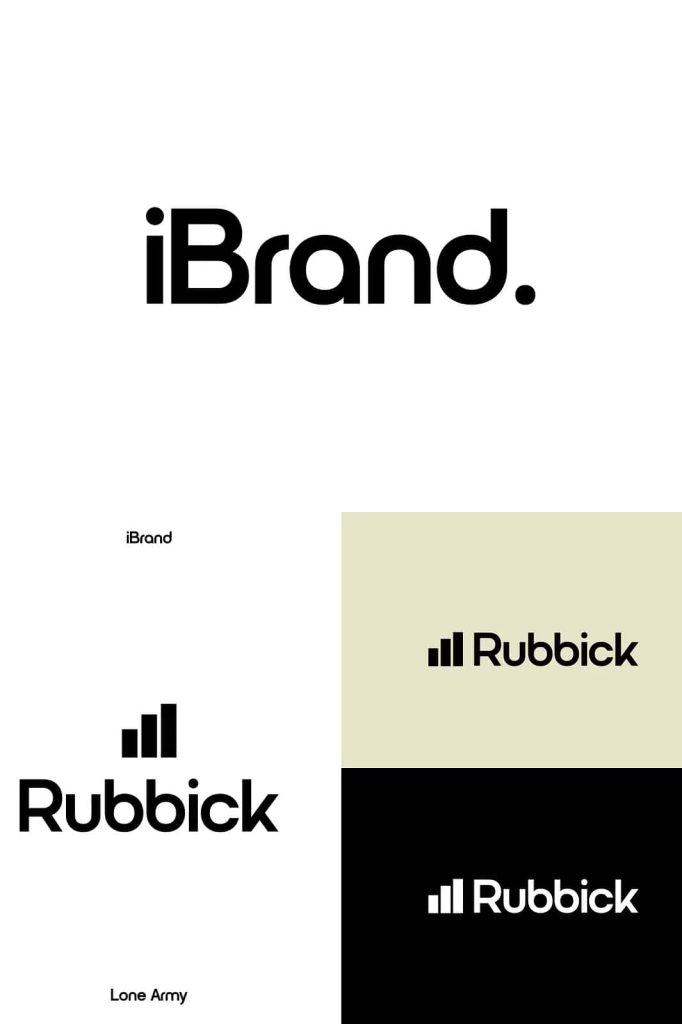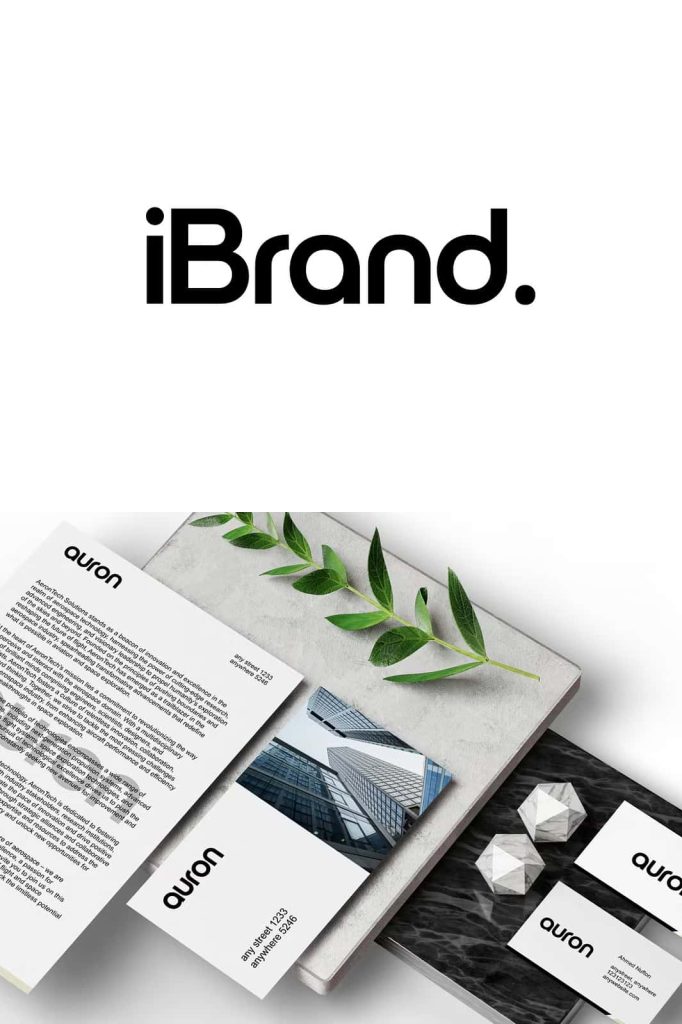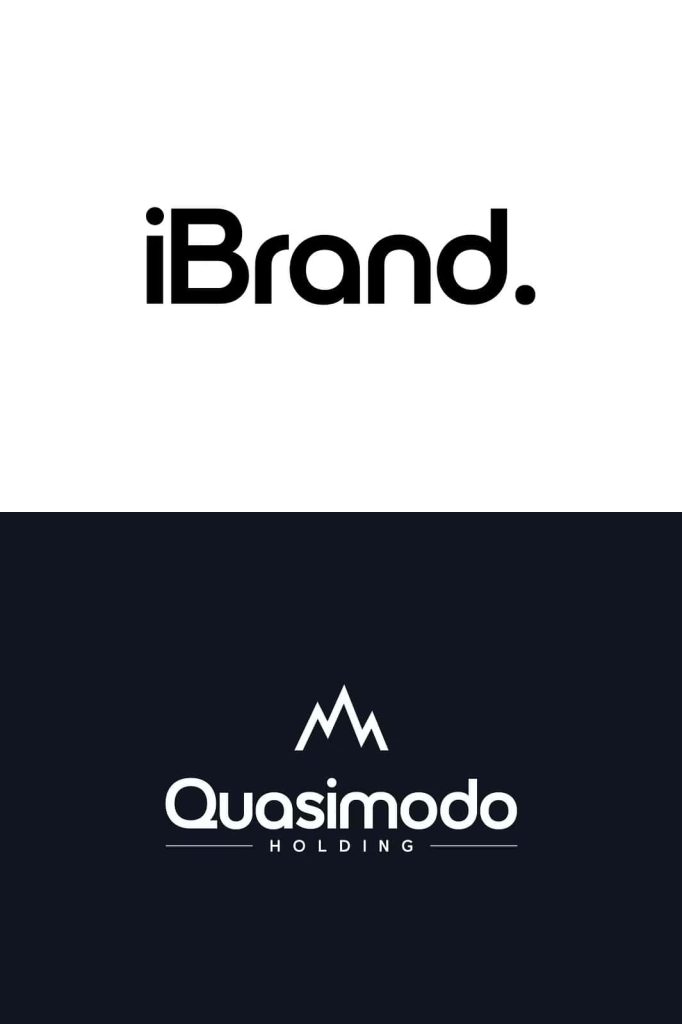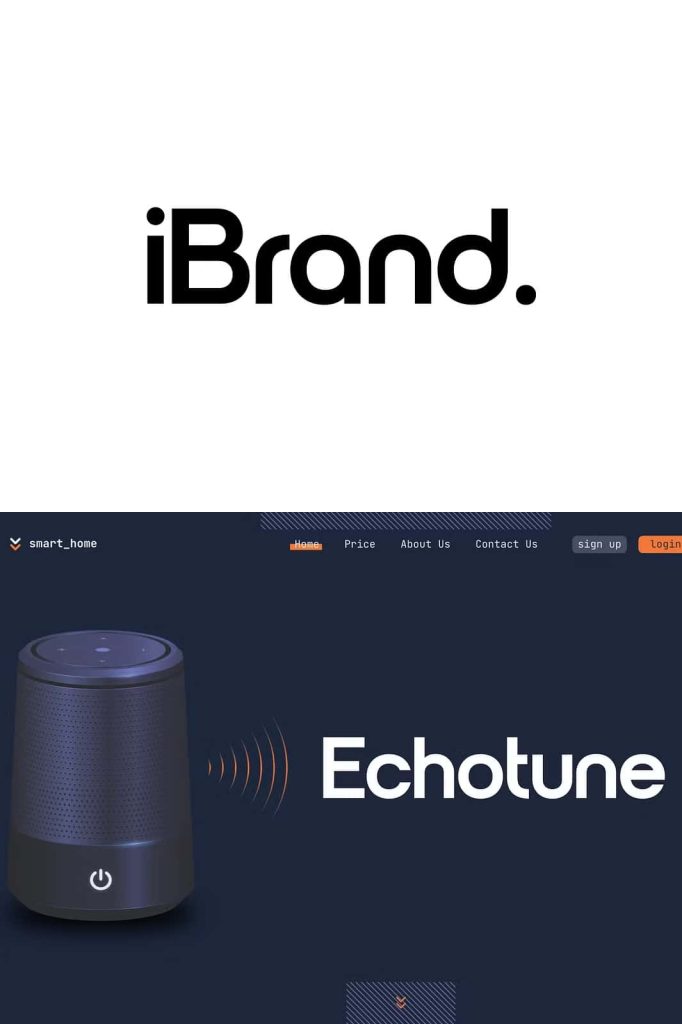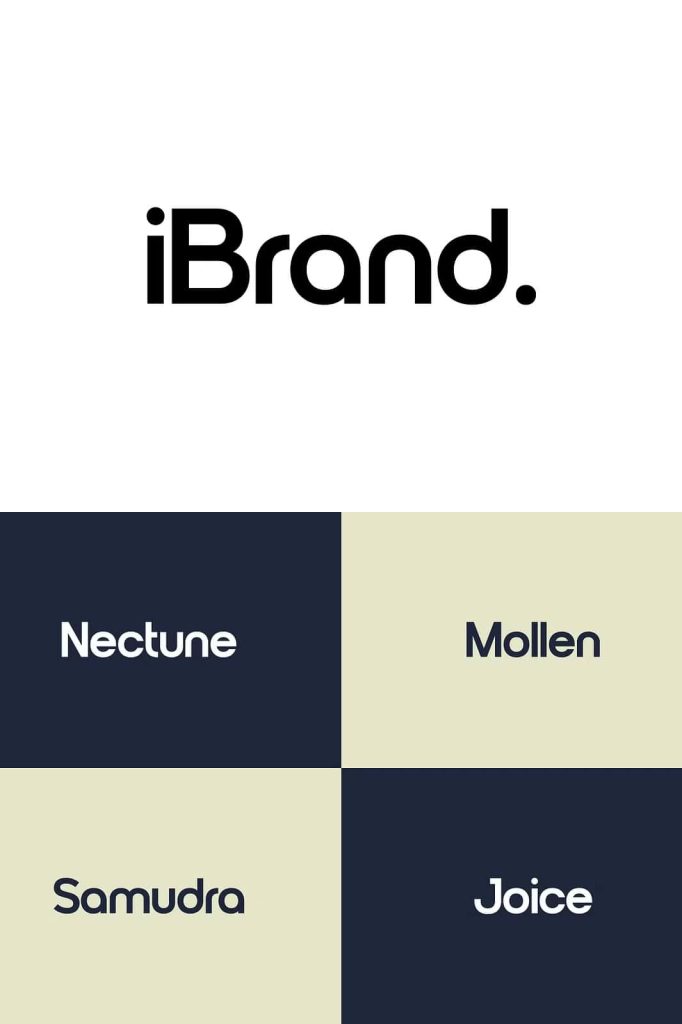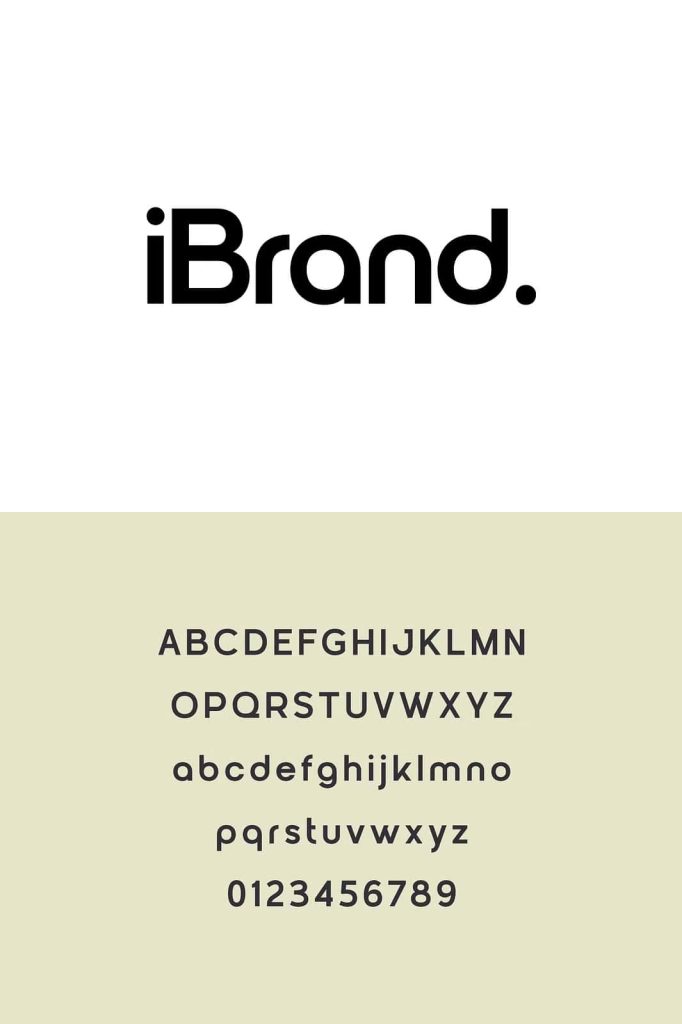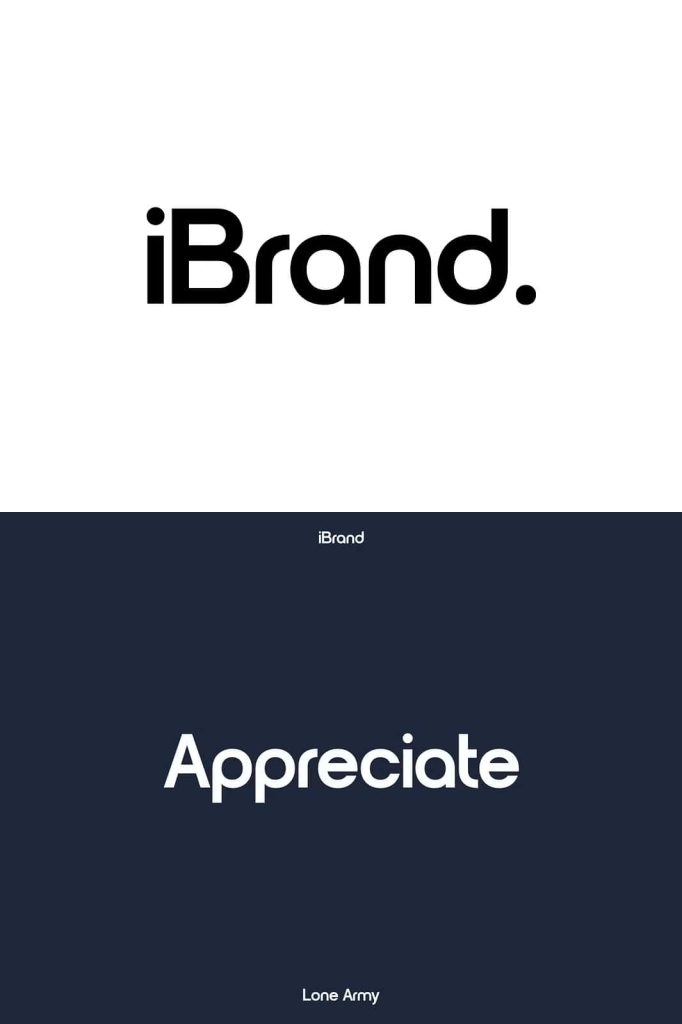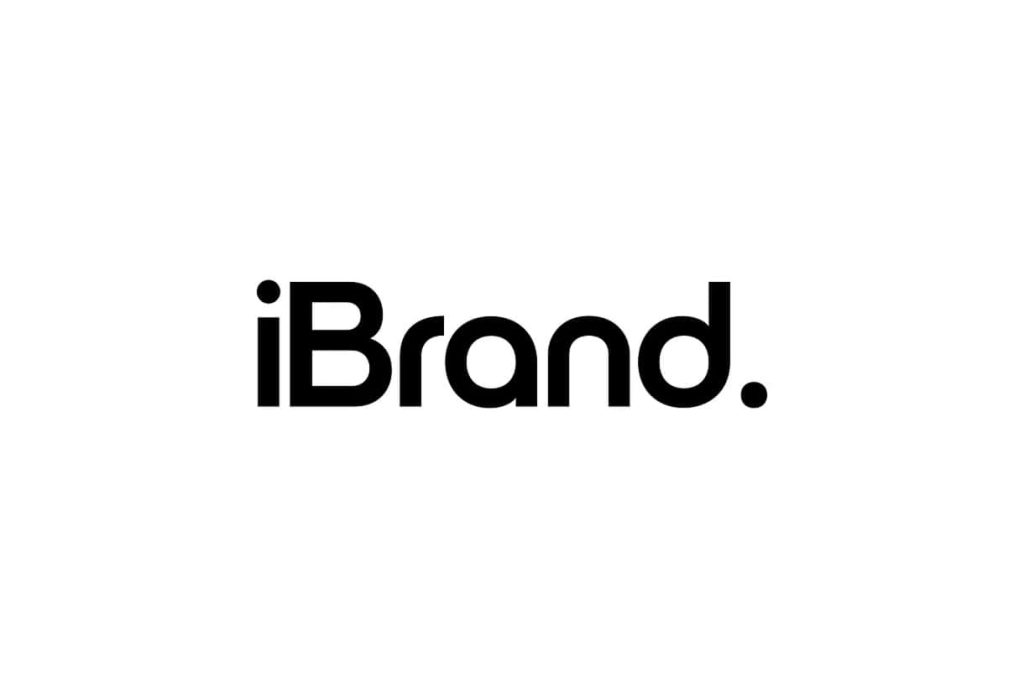
iBrand – Logo FontleastedMay 26, 2025Fonts iBrand Font is a meticulously crafted typeface designed specifically for logos, branding, headers, and titling. Download